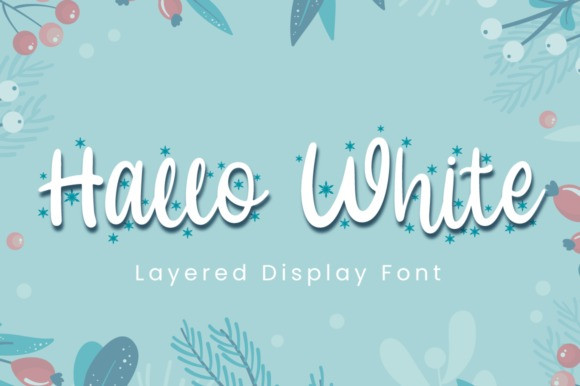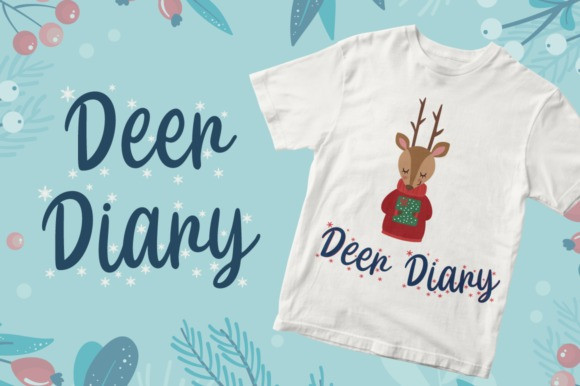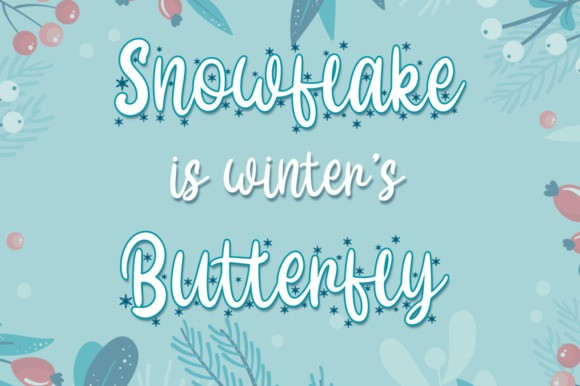
Hallo White Script Font
Hallo White is a festive and romantic handwritten font, featuring little snowflakes. Fall in love with its incredibly versatile style and use it to create lovely holiday designs!